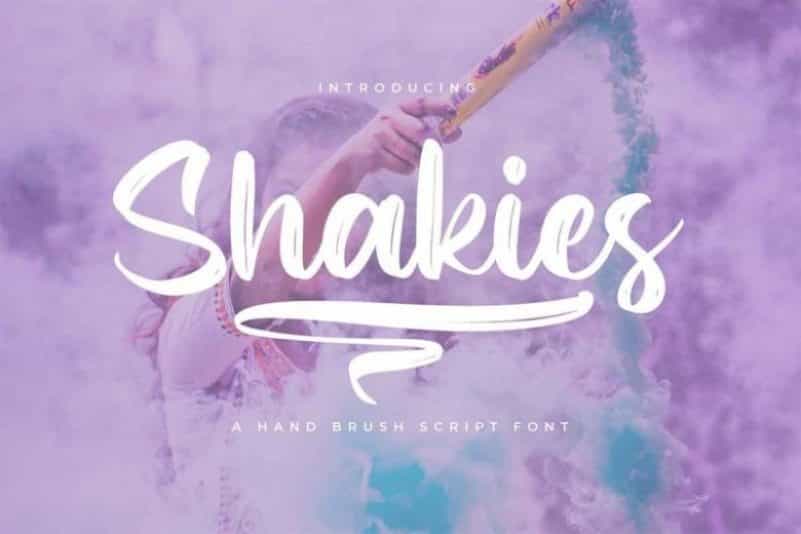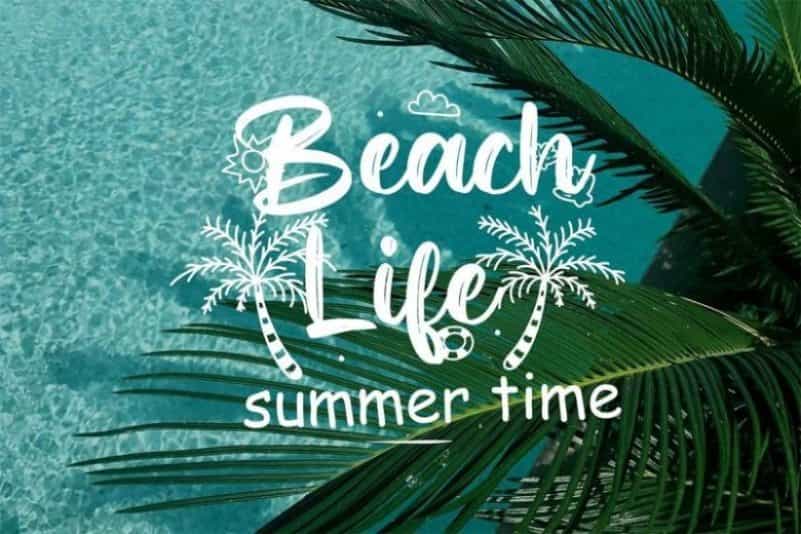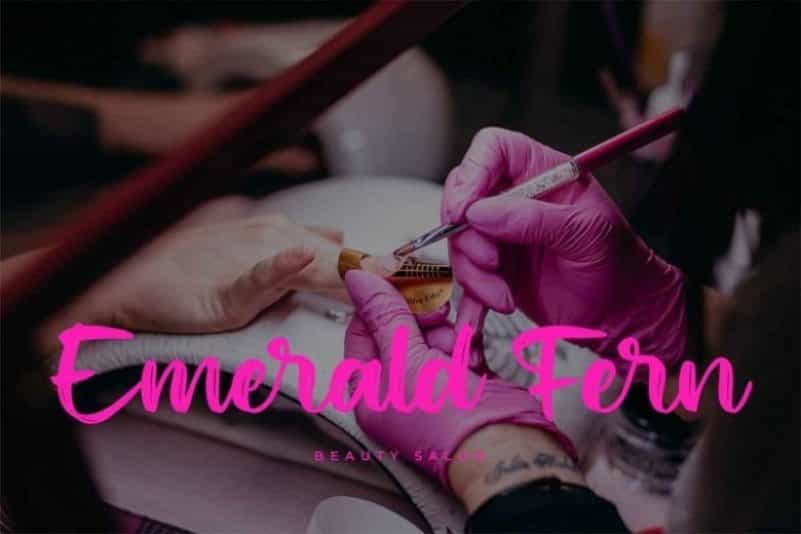
Shakies is a carefully brush typeface inspired the script hand lettering style. It’s stylish, clean, stylist with perfect font for branding project, logo, t-shirt designs (or other apparels), social media posts, advertisements & product packaging designs and so on.